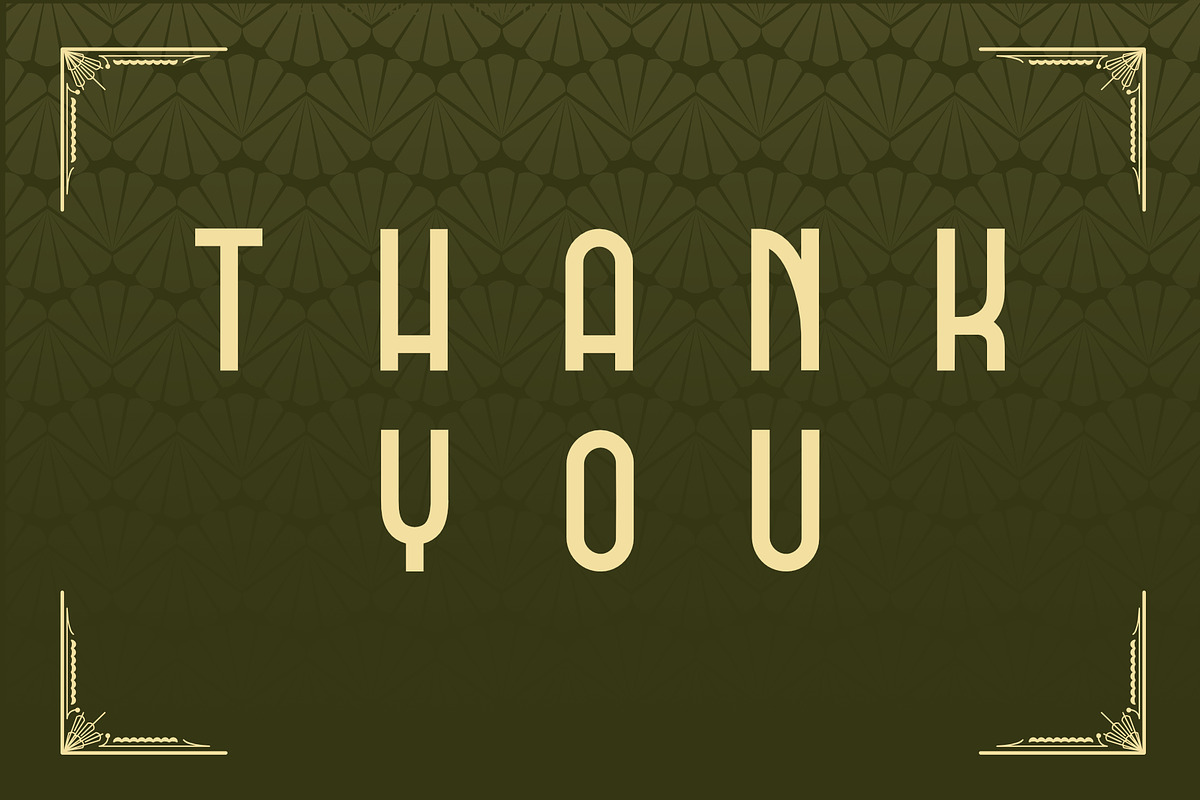
DOMCO
Introducing the DOMCO font
The DOMCO font comes with art deco style with the addition of a modern, classic and elegant touch, domco has 3 font variations and 6 alternative fonts in each letter so you can use it and explore it in such a way that you can realize what you want, with the added bonus in it , so don't hesitate to try it
Uppercase Characters
Support of foreign languages: ÀÁÂÃÄÅÆÇÈÉÊËÌÍÎÏÐÑÒÓÔÕÖØÙÚÛÜÝ